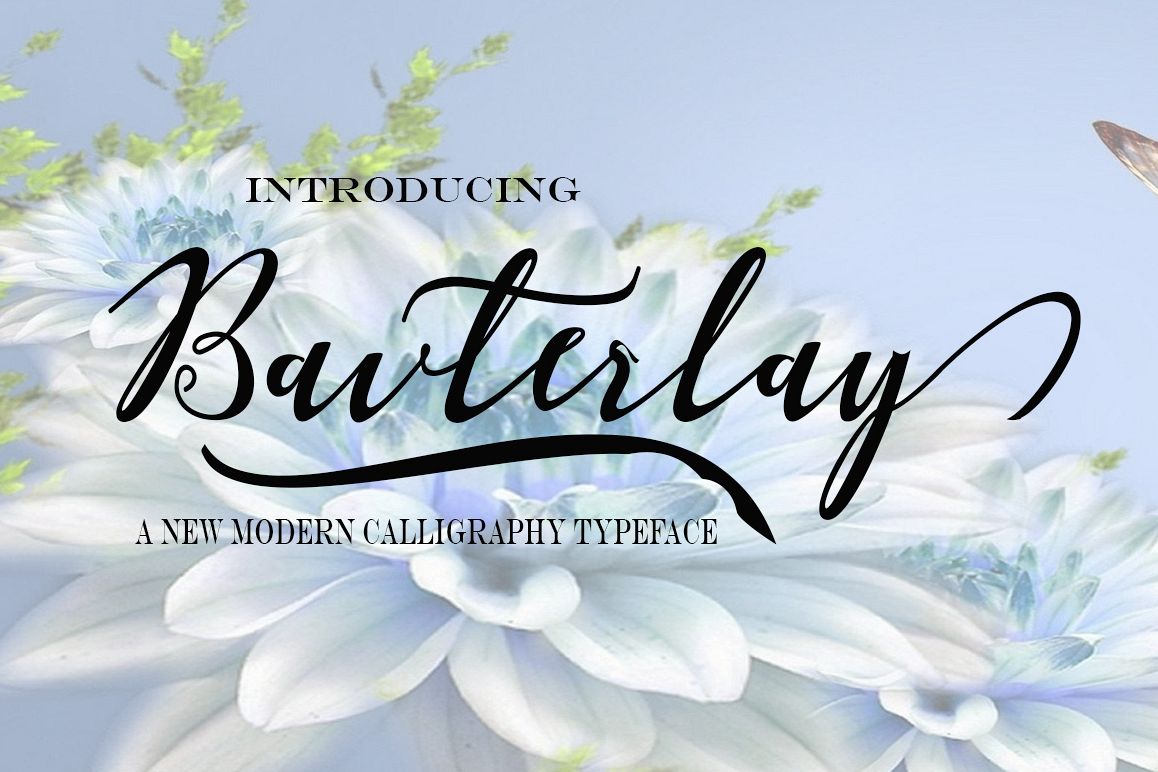
Bavterlay
Bavterlay Modern Calligraphy. This font was designed by handwriting, and it has a modern and unique forms of calligraphy, the writing style is very natural.
The Features of this fonts is;
Standart ligatures
Stylistic Alternates
Contextual Alternates
Stylistic sets
swash